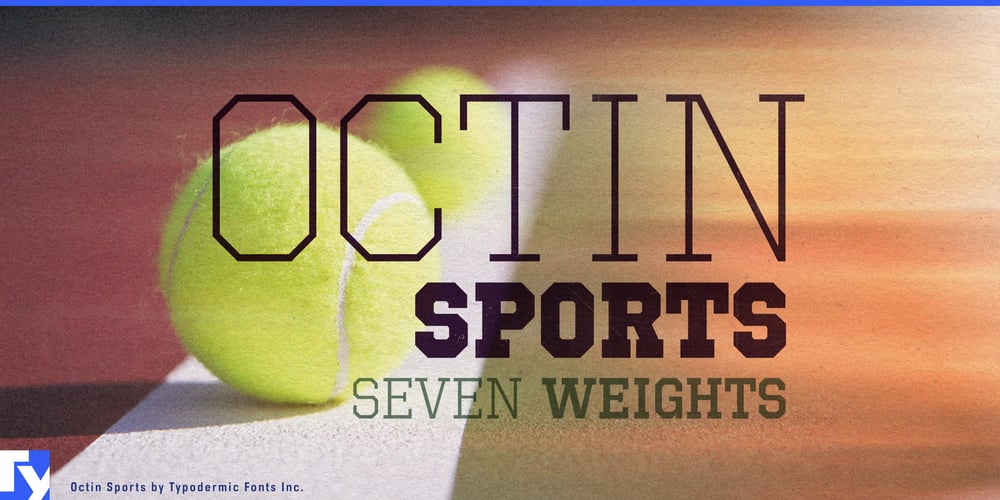
Octin Sports Font Family was designed by Ray Larabie and published by Typodermic. Octin Sports contains 7 styles and family package options. Get ready to break records with Octin Sports, the typeface that’s always in peak condition. With seven weights ranging from featherlight to heavyweight champion, this font family is primed to take your designs from rookie status to hall of fame material.Octin Sports isn’t just a one-trick player. Sure, it excels on jerseys and scoreboards, but this versatile MVP is equally at home in the classroom, on construction sites, or patrolling the streets. Its angular, energetic letterforms bring a winning spirit to any project, whether you’re designing for a little league or the major leagues. From the “warmup” light weight to the “game-winning touchdown” black, Octin Sports gives you a full roster of typographic talent. The lighter weights sprint through body text with agile grace, while the heavier hitters slam your headlines home with the force of a power forward’s dunk.This font is a true team player, fluent in the international language of competition. Supporting most Latin-based European writing systems, Octin Sports ensures your message maintains its competitive edge from the soccer pitches of Brazil to the ice rinks of Finland. It’s typography that’s ready to compete on the global stage. Octin Sports leads an all-star lineup of fonts. Join forces with Octin College for that varsity letter look, Octin Prison for designs that play hard defense, Octin Stencil for military-grade fitness, Octin Vintage for throwback charm, and Octin Spraypaint for street-court style.In a design world full of bench warmers, Octin Sports is always in the starting lineup. It’s for brands that don’t just participate—they dominate. For messages that don’t just speak—they roar. From energy drinks to extreme sports, Octin Sports communicates with the raw power of a last-second buzzer-beater. Choose Octin Sports and watch your designs sprint past the competition. Because in the typography Olympics, Octin Sports doesn’t just go for gold—it redefines the game.